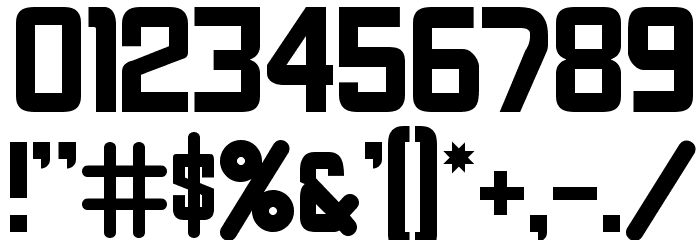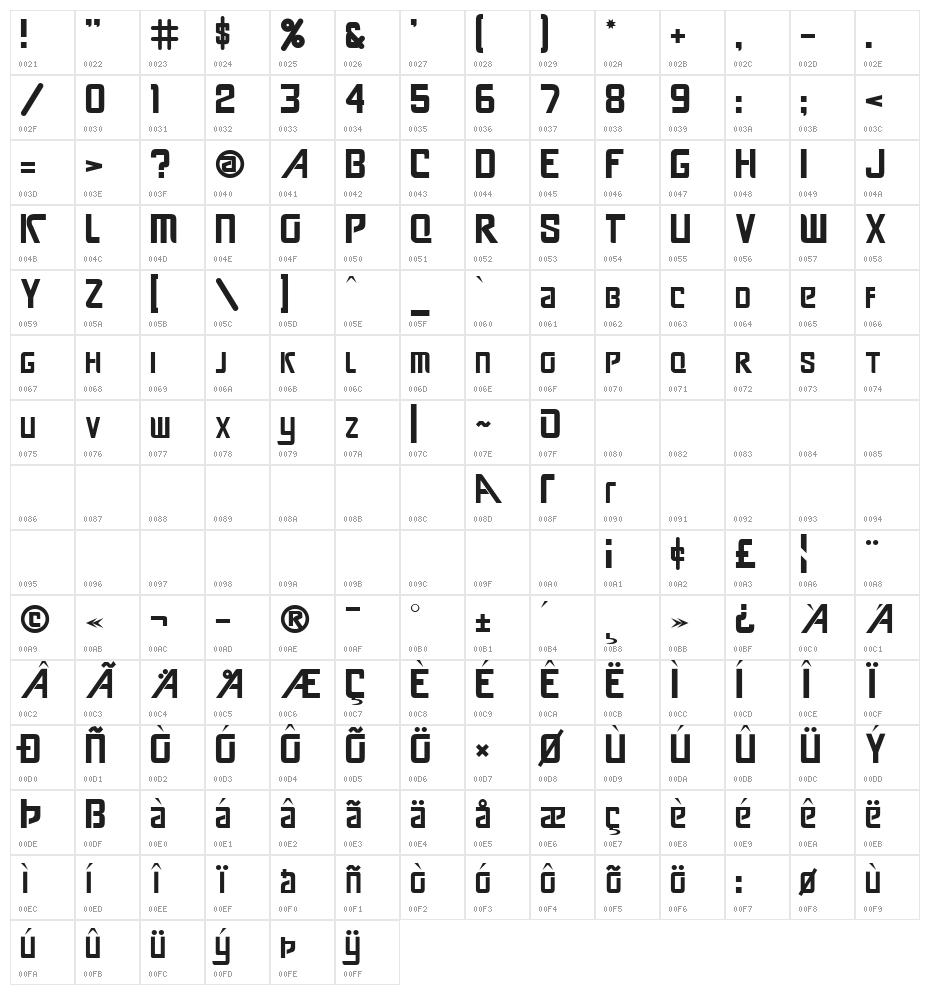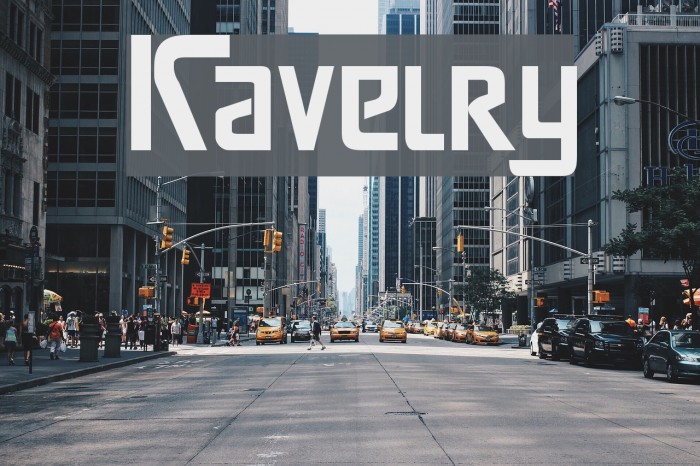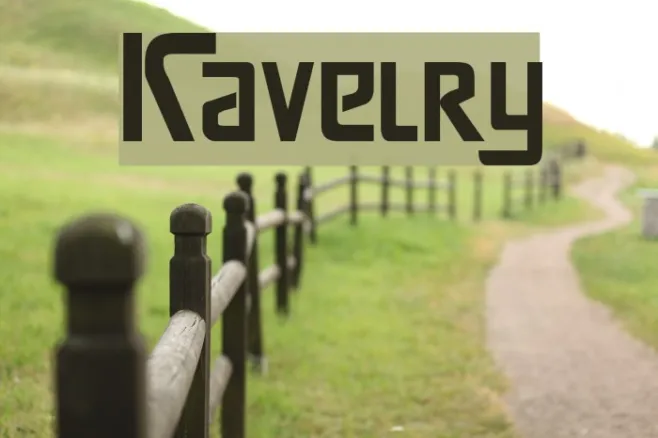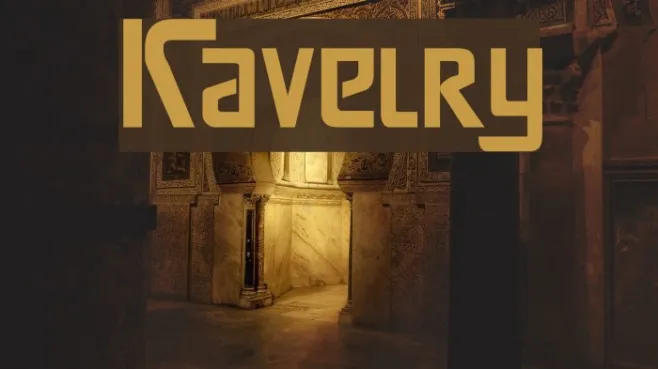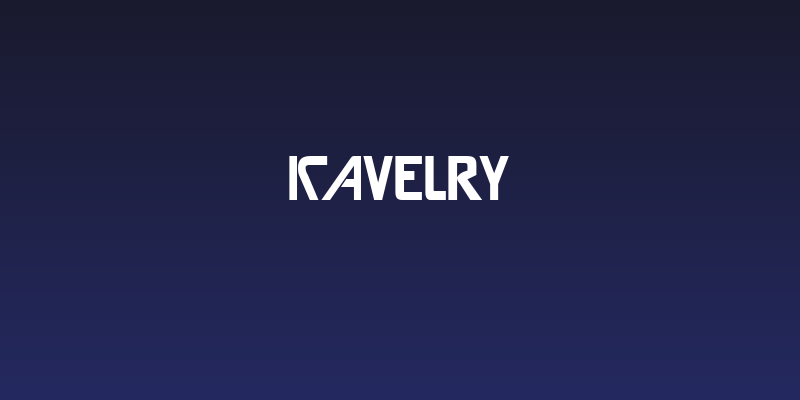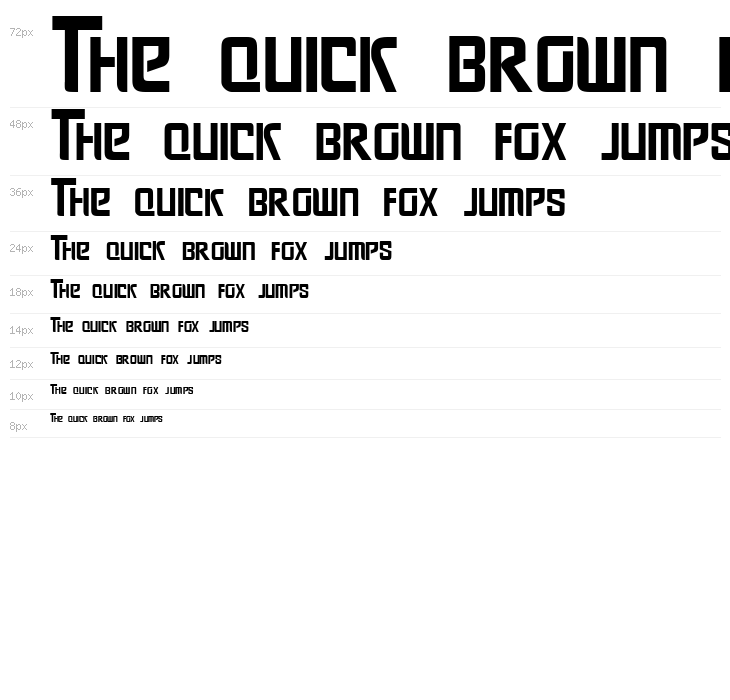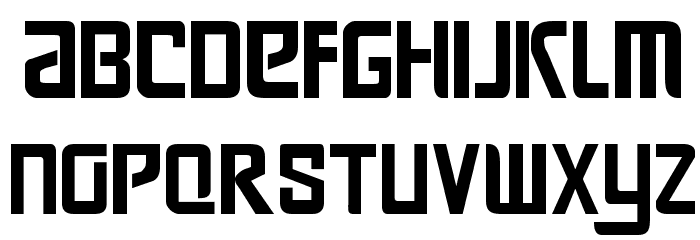
Kavelry Font
Kavelry Description
This font features a bold, geometric design with a modern and futuristic aesthetic. The characters are constructed with sharp angles and straight lines, giving them a distinct and assertive appearance. The uppercase and lowercase letters maintain a consistent style, with a uniform height and width that enhances readability. The numerals and special characters are designed to match the overall geometric theme, providing a cohesive look across all elements. This font is ideal for creating impactful headlines, logos, and branding materials that require a strong visual presence.
| Proposed Projects | Ideal for branding, headlines, logos, and promotional materials. |